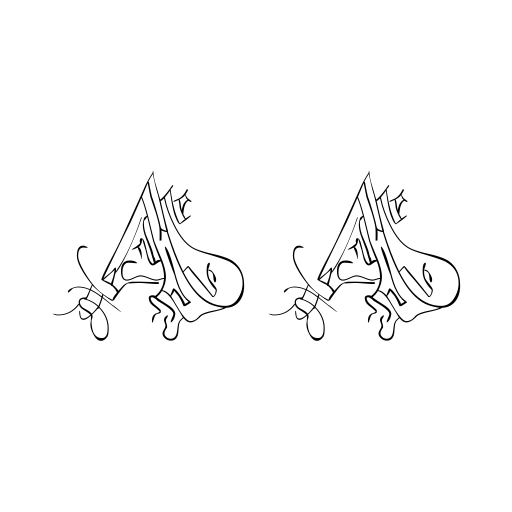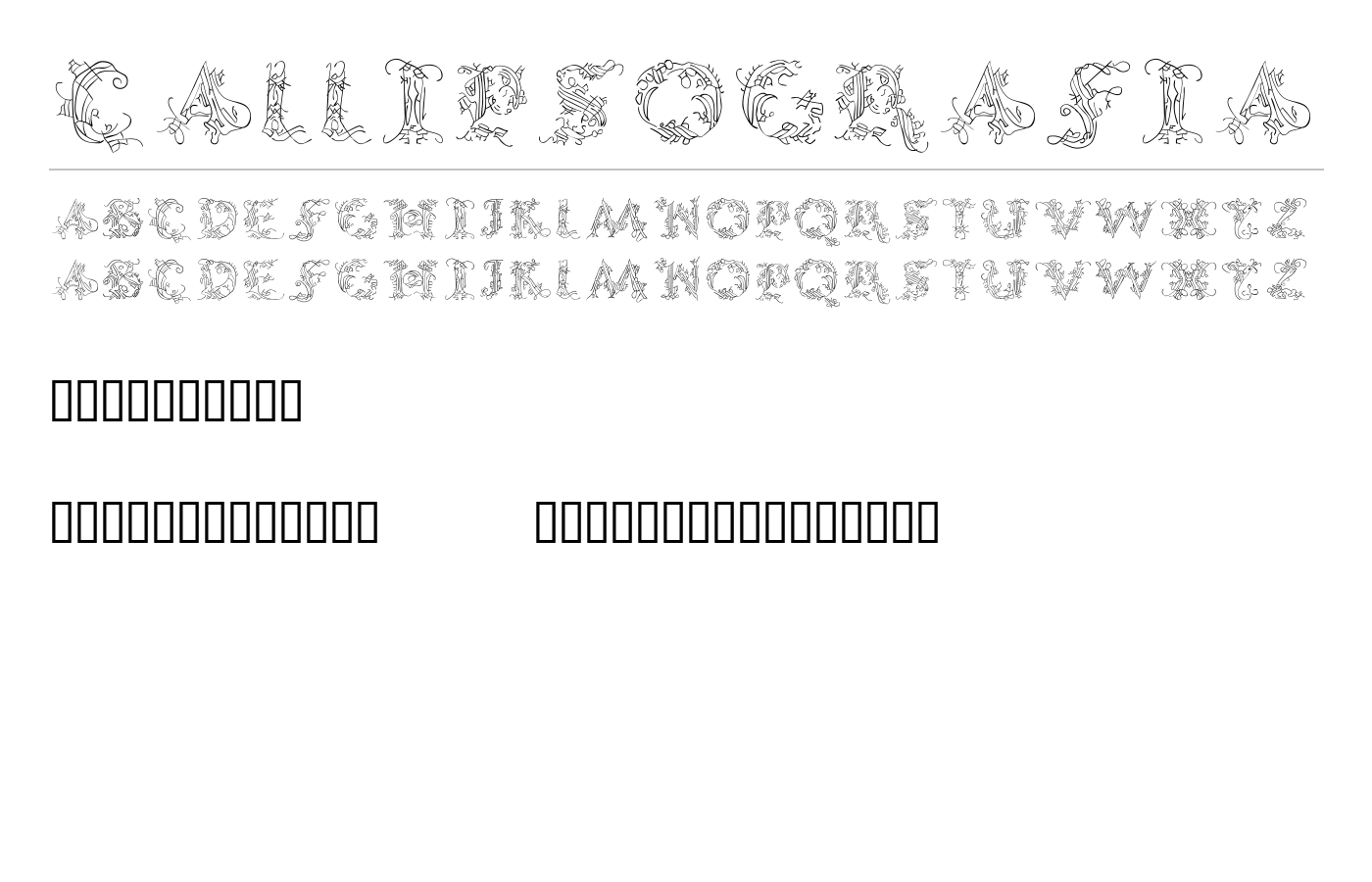
CalliPsoGrafia Regular is an intricate decorative serif font featuring highly ornate and flowing letterforms that resemble hand-drawn calligraphy intertwined with floral and vine-like details. This delicate and artistic design lends a whimsical, vintage charm, making it perfect for elegant invitations, decorative logos, and creative packaging where a unique, sophisticated flair is desired rather than for extended body text. Its complex and ornamental style captures attention and adds a handcrafted, luxurious feel to special projects.
CalliPsoGrafia Regular Font
About CalliPsoGrafia Regular Font